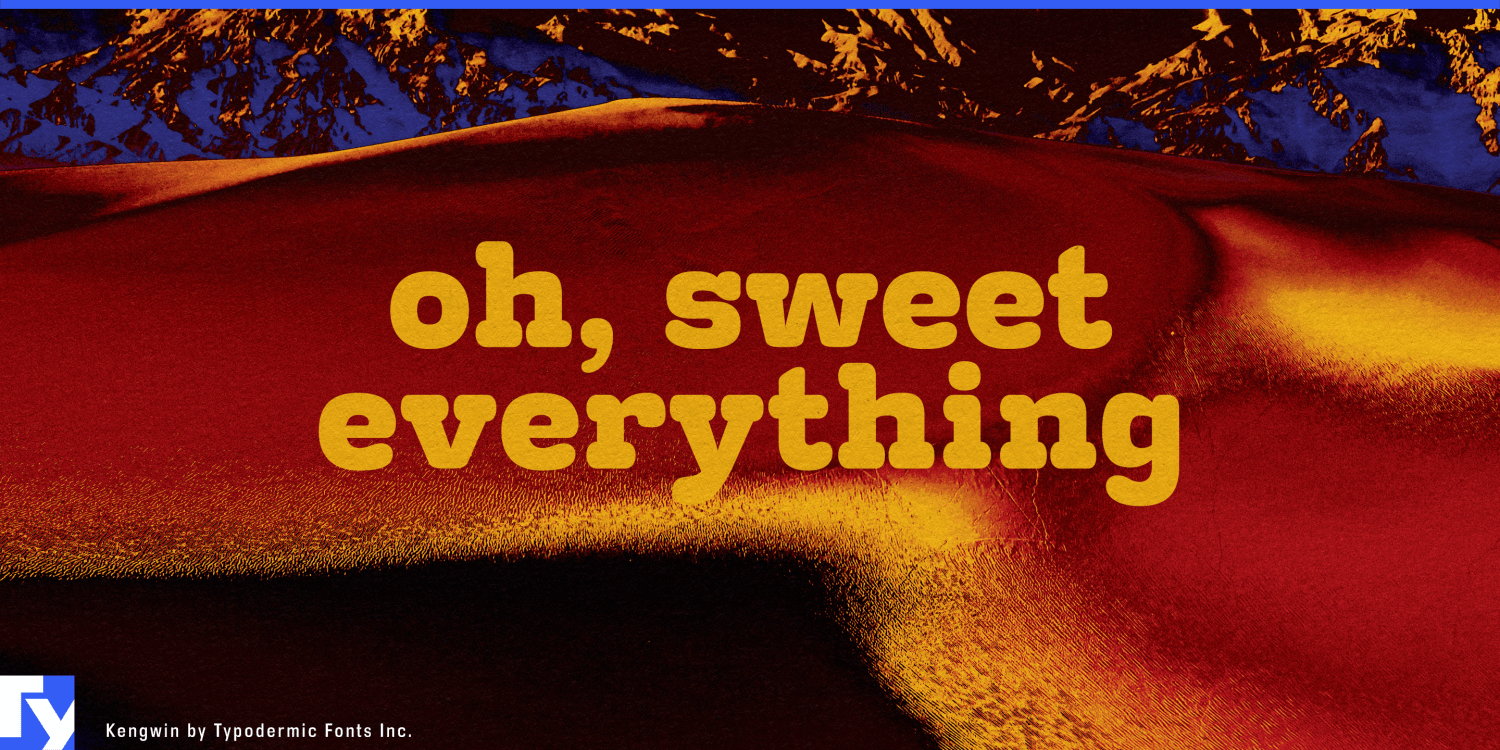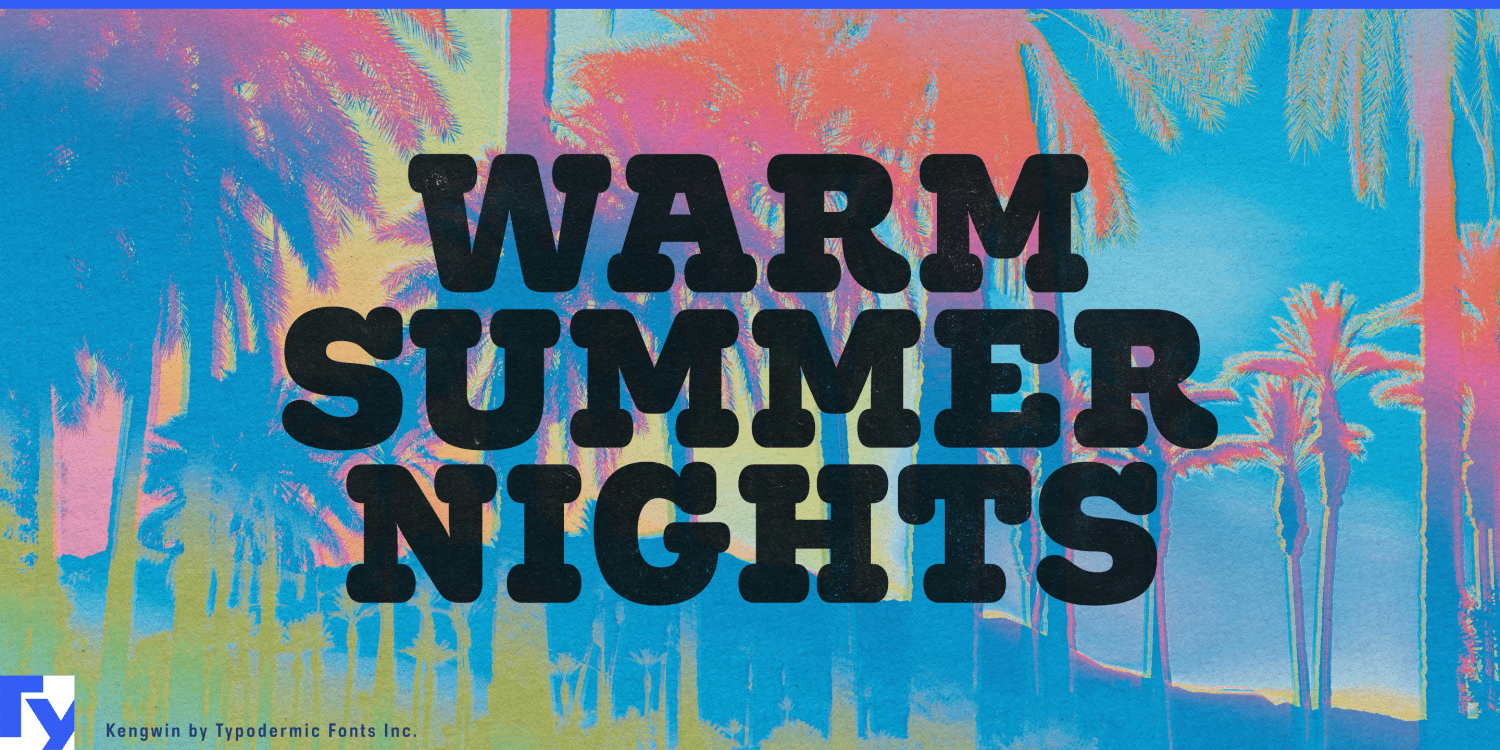
About Kengwin
Kengwin bursts onto the typographic scene with an irresistible blend of boldness and charm, a font that demands attention not through aggression, but through sheer personality. This rounded slab serif typeface is a testament to the power of form, where…